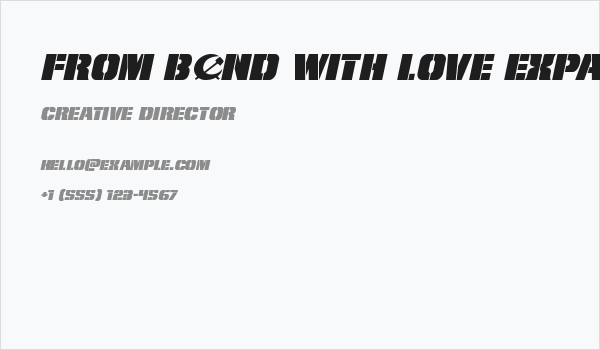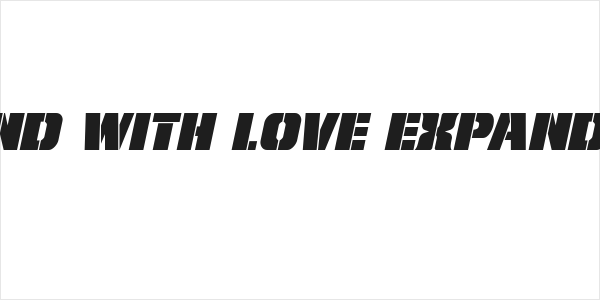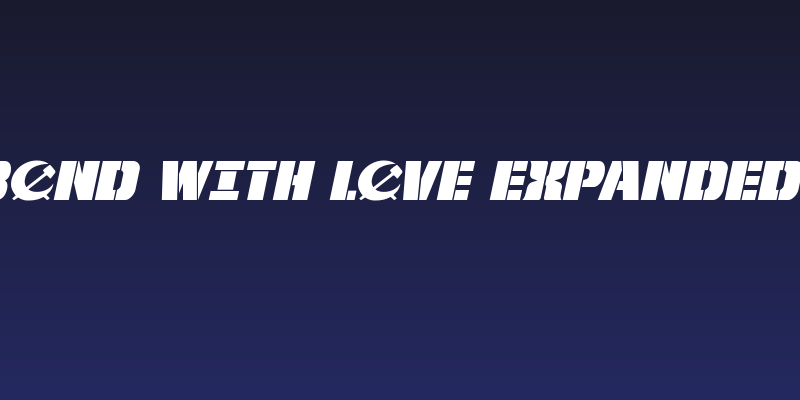
From BOND With Love Expanded Italic Font
From BOND With Love Expanded Italic Description
This font features a bold, expanded style with a distinct italic slant, giving it a dynamic and energetic appearance. The characters are heavily weighted, with thick strokes that create a strong visual impact. The expanded width of the letters enhances readability while maintaining a unique, modern aesthetic. The font includes a full set of uppercase and lowercase letters, numbers, and a variety of special characters, making it versatile for various design needs. Its boldness and slant make it particularly suitable for attention-grabbing headlines and impactful branding.
| Proposed Projects | Ideal for use in branding, advertising, posters, and any project requiring a bold, modern typeface. |